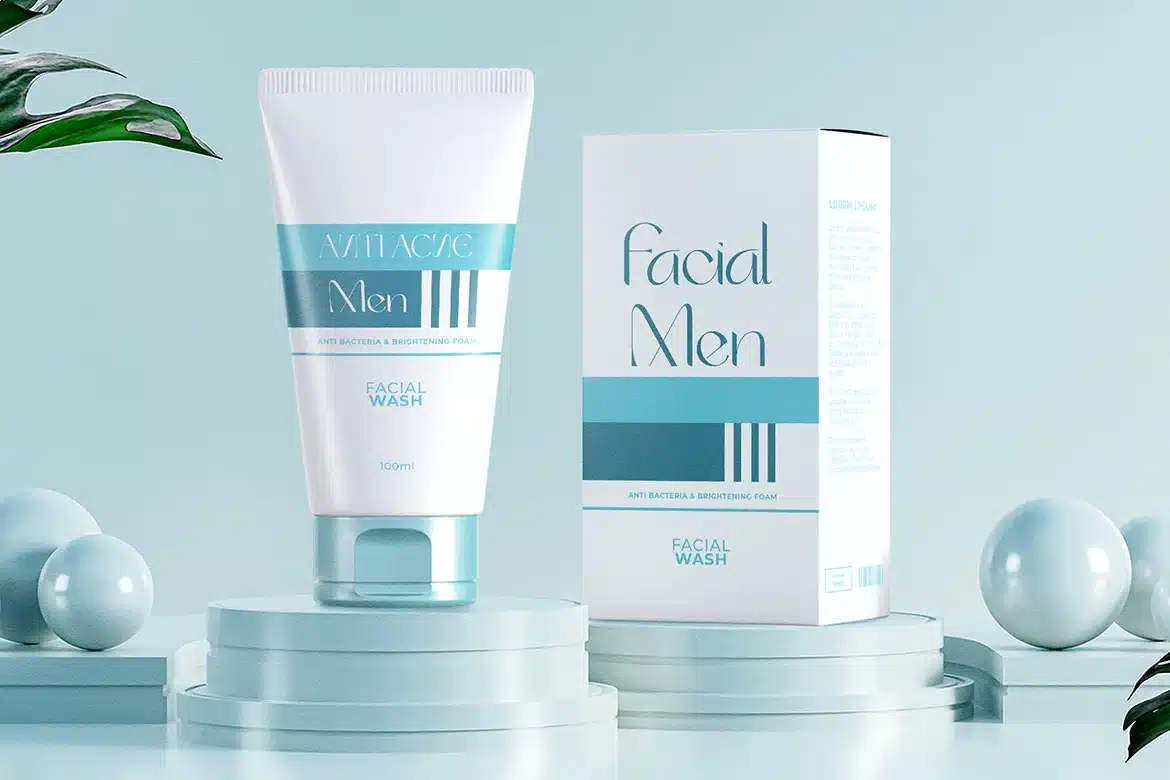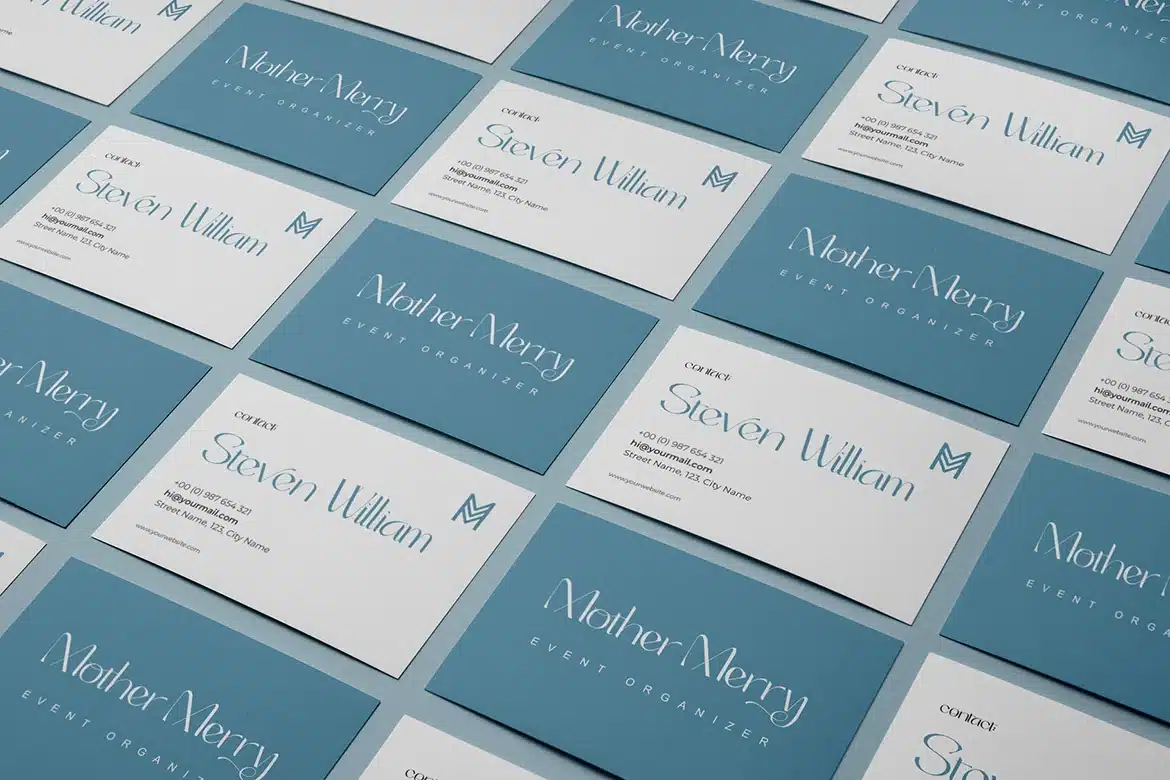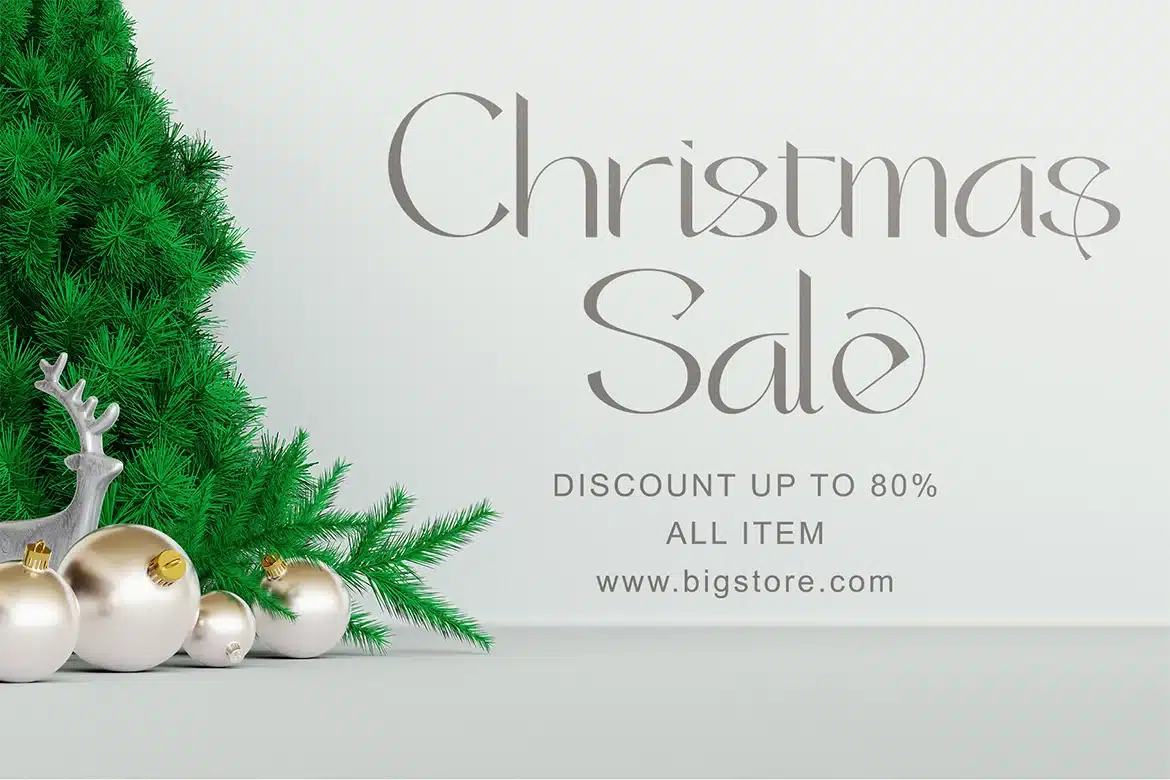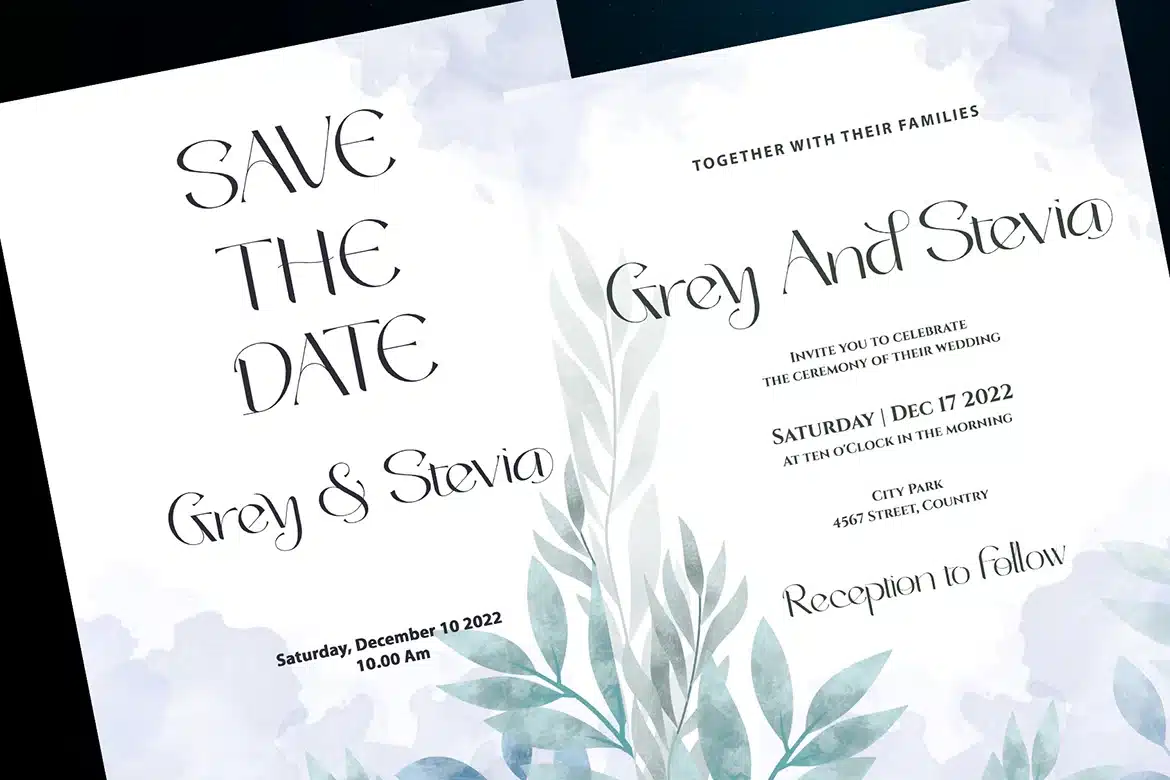
Christmas Elegant Font
Christmas Elegant is a modern and classic serif typeface with a unique style and modern look. Fall in love with its incredibly stylish and glam vibe and use it to create spectacular designs! This font is PUA encoded which means you can access all of the glyphs.
Many Features:
- Support multilingual; ä ö ü Ä Ö Ü ß ¿ ¡
- lowercase and uppercase letters
- Alternate, Swash, Titling, ss01 & Ligature.